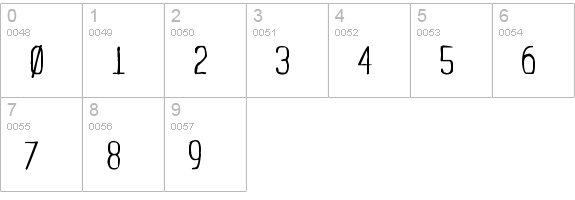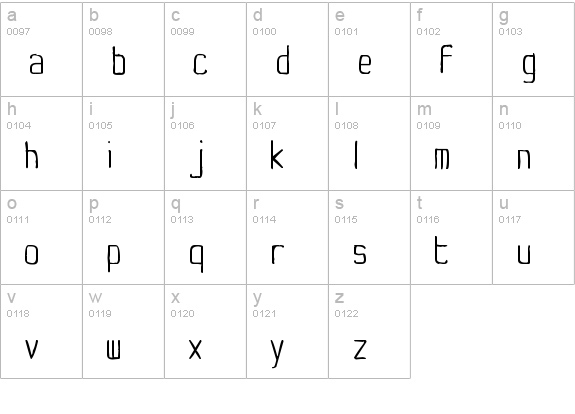
Yachting Type Font Details
Yachting Type font is a sleek and elegant typeface designed for those who appreciate the beauty of the open seas. With its clean lines and nautical-inspired design elements, this font is perfect for creating designs that exude sophistication and style. Whether you're working on a project related to sailing, yachting, or simply want to add a touch of maritime charm to your work, Yachting Type font is the perfect choice. And the best part? Yachting Type font is available for free download at FontsMarket.com. That's right, you can add this stunning font to your collection without spending a dime. So why wait? Set sail with Yachting Type font and take your designs to new heights of elegance and class.